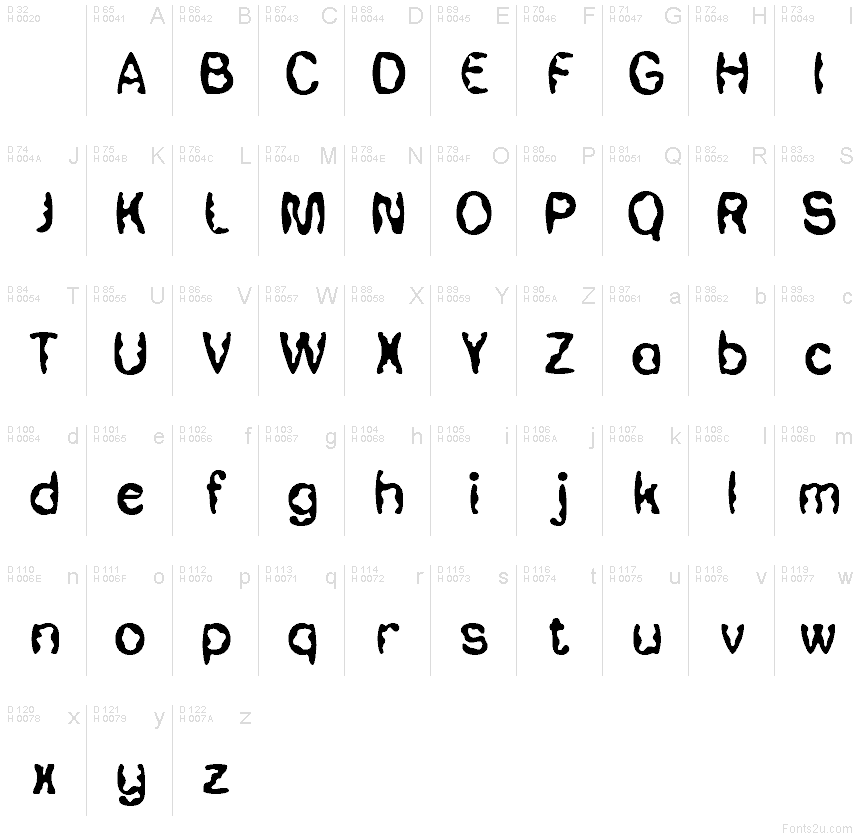
CSCasperDrawn-Regular Demo
CS Casper Drawn font by Craft Supply Co. is a scary cartoon display font with a casual vibe; inspired by whimsical, irregular, and retro letters. This friendly handwriting will appeal to anyone with an interest in diverse text designs that have an artistic flair about them.